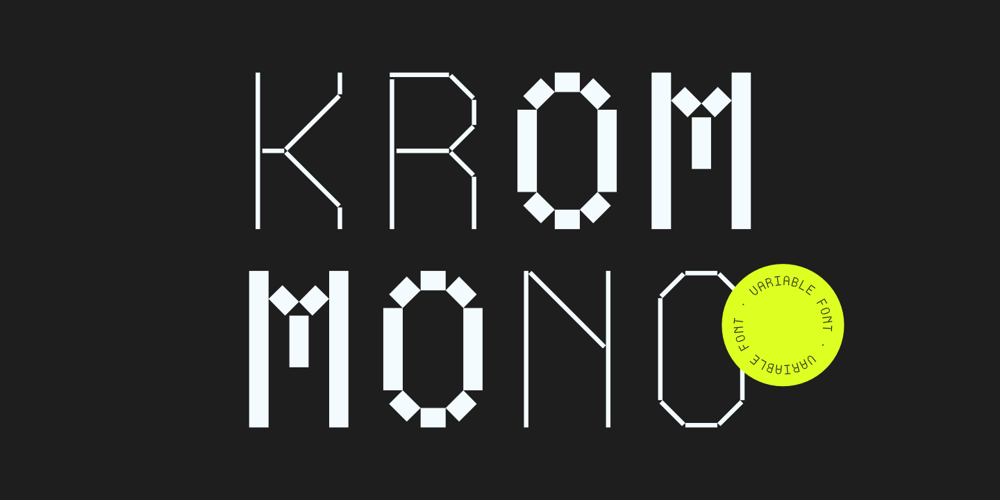
Krom Mono Font Family was designed by Radinal Riki and published by ATK Studio. Krom Mono contains 10 styles and family package options. Krom Mono is a modular monospaced font built with pixel shapes. Designed for headlines, posters, and small size body text. This family consist of 9 weights from thin to black plus variable font with a character set that covers over 90 languages.